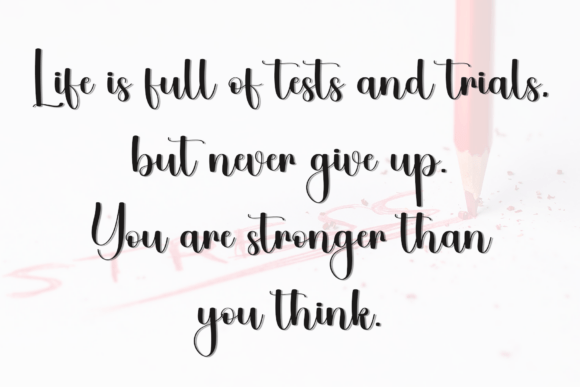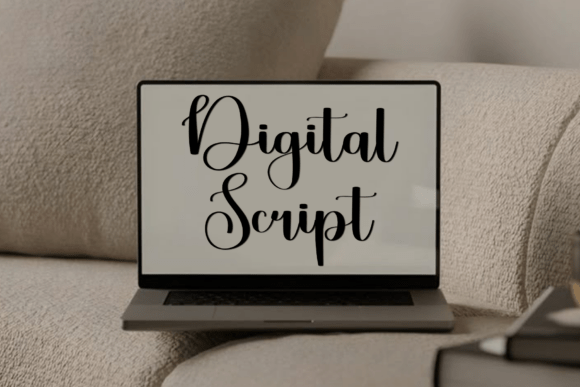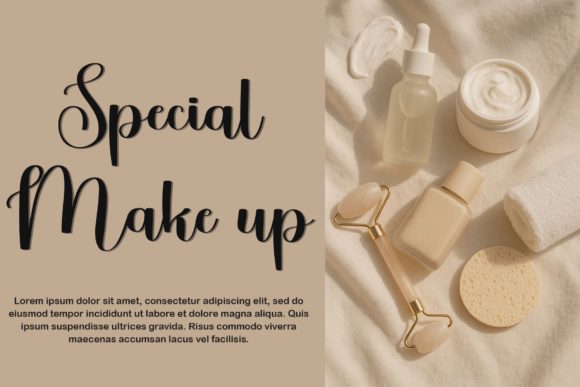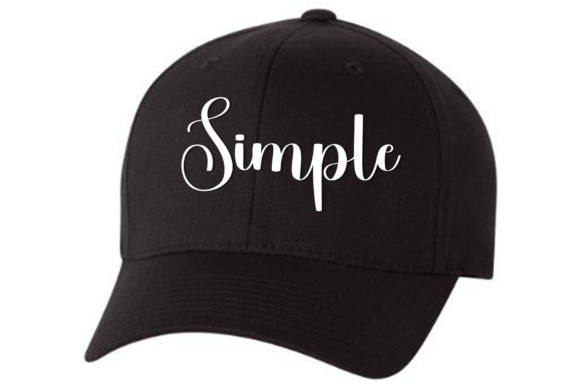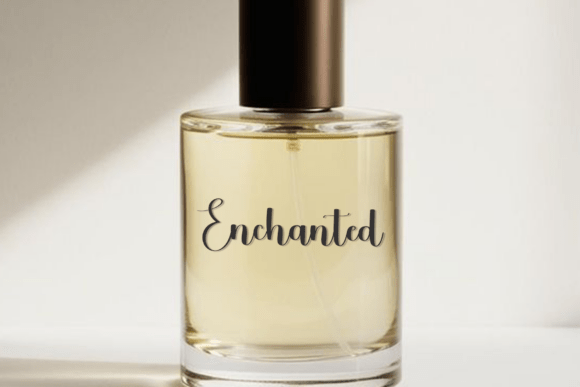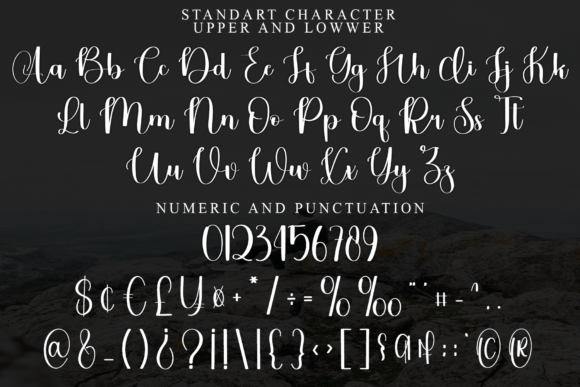
Unleash the Magic of Adventure Font: A Festive Typeface for the Holiday Season
Are you looking for a font that embodies the spirit of adventure and festivity? Look no further than Adventure Font, a merry and decorative typeface that’s perfect for capturing the essence of the holiday season. With its whimsical flair and enchanting elements, this font is sure to add a touch of magic to your designs.
A Festive Font for Holiday-Themed Projects
Adventure Font is specifically designed to bring a cheerful and nostalgic ambiance to your words. Its decorative elements and playful ligatures make it an ideal choice for holiday-themed projects, such as greeting cards, gift tags, and festive posters. Whether you’re a designer, crafter, or DIY enthusiast, this font is sure to inspire your creativity and add a personal touch to your creations.
One of the best features of Adventure Font is that it’s PUA (Private Use Area) encoded, which means you can access all of the amazing glyphs and ligatures with ease. This makes it simple to incorporate the font into your designs, without having to worry about complicated coding or technical issues. With Adventure Font, you can focus on being creative and having fun, rather than getting bogged down in technical details.
Adventure Font is a versatile typeface that’s perfect for designers and crafters alike. Whether you’re creating professional designs or handmade crafts, this font is sure to add a touch of personality and whimsy to your work. Here are just a few ways you can use Adventure Font:
- Create festive greeting cards and gift tags for the holiday season
- Design eye-catching posters and flyers for holiday events and promotions
- Add a personal touch to your handmade crafts, such as scrapbooking and journaling
- Use as a title font for holiday-themed blog posts and social media graphics
Tips for Using Adventure Font
Here are a few tips for getting the most out of Adventure Font:
- Experiment with different font sizes and colors to add visual interest to your designs
- Use the font’s decorative elements and ligatures to add a touch of whimsy and personality to your text
- Pair Adventure Font with other fonts to create a unique and eye-catching typography combination
- Don’t be afraid to get creative and try out new and unusual design ideas
Adventure Font is a festive and merry typeface that’s perfect for capturing the spirit of the holiday season. With its decorative elements, whimsical flair, and PUA encoding, this font is sure to add a touch of enchantment to your designs. Whether you’re a designer, crafter, or DIY enthusiast, Adventure Font is a great choice for anyone looking to add a little magic to their typography. So why wait? Download Adventure Font today and start creating your own festive and fun designs!